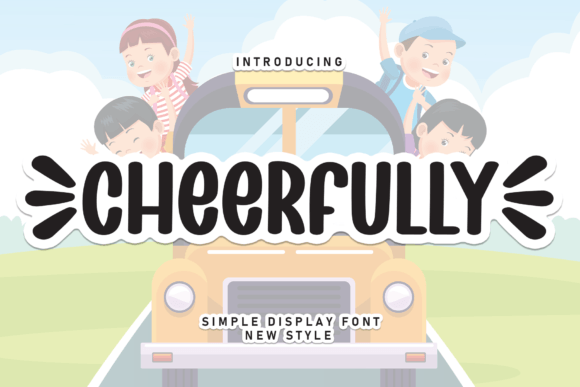
Discover Your New Favorite Font: Cheerfully
Have you ever been working on a design project, staring blankly at your computer screen, and suddenly, a burst of creativity strikes? The words start flowing, and your imagination runs wild with possibilities. This is the moment when the right font can make all the difference. For designers, finding that perfect font can be the key to unlocking a truly spectacular design.
Enter the Cheerfully Font, a beautiful handwritten font that exudes elegance and sophistication. This font is perfect for adding a touch of warmth and personality to your projects. Its distinct and timeless style makes it a valuable asset for designers looking to create unique and memorable designs. Whether you’re working on a wedding invitation, a blog post, or a marketing campaign, the Cheerfully Font is sure to bring a smile to your face and a touch of magic to your design.
Cheerfully Font Key Features
- Font Family: Cheerfully Font is a unique, hand-drawn sans-serif font designed to evoke a sense of joy and playfulness.
Review: Cheerfully Font
Overall, I’m really enjoying working with the Cheerfully Font. It’s a great choice for anyone looking to add a touch of whimsy and personality to their designs.
- Unique and playful feel – the Cheerfully Font is perfect for designs that need a bit of whimsy and charm.
- Good for titles and headings – the font’s bold and expressive nature makes it ideal for grabbing the user’s attention.
- Customization options – the font comes with a range of variations and styles, allowing you to tailor the look to your design’s specific needs.
- Not ideal for large blocks of text – the font’s playful nature can make it difficult to read when used extensively.
- Limited legibility – the font’s unique characteristics can make it challenging to read, especially for users with vision impairments.
Overall, I’d say the Cheerfully Font is a great choice for designers looking to add some personality to their work. While it may have some limitations, its unique feel and customization options make it a valuable addition to any design library.
Tips for Getting the Most Out of Cheerfully Font
Use Cheerfully Font for titles, headings, and other text elements where you want to add a touch of playfulness and whimsy.
Pair Cheerfully Font with other fonts to create a unique and eye-catching design.
Experiment with different font sizes and styles to achieve the desired look and feel.